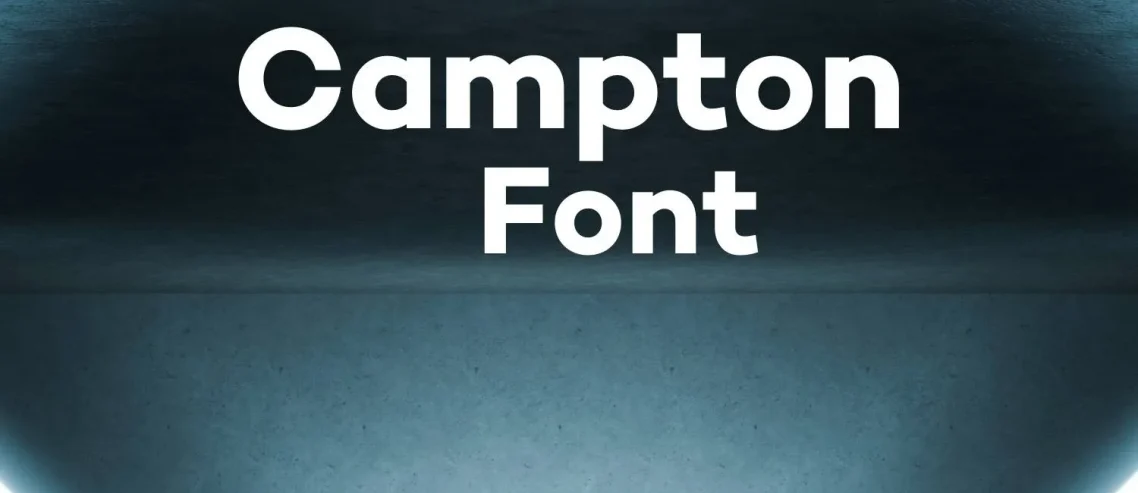
Campton Font, designed by Jonny Pinhorn, is a sans serif typeface widely used by renowned publications like The New York Times, The Wall Street Journal, and Time magazine since its release in 2011. Discover why this font has become a favorite among top publishers.
This font is also very well in pairing function. So, you can easily combine this font with any google or adobe font but it makes a very stunning pair with Bariol Font.
Campton Font Info
| Name | Campton Font |
| Designer | Jonny Pinhorn |
| Style | Sans-serif |